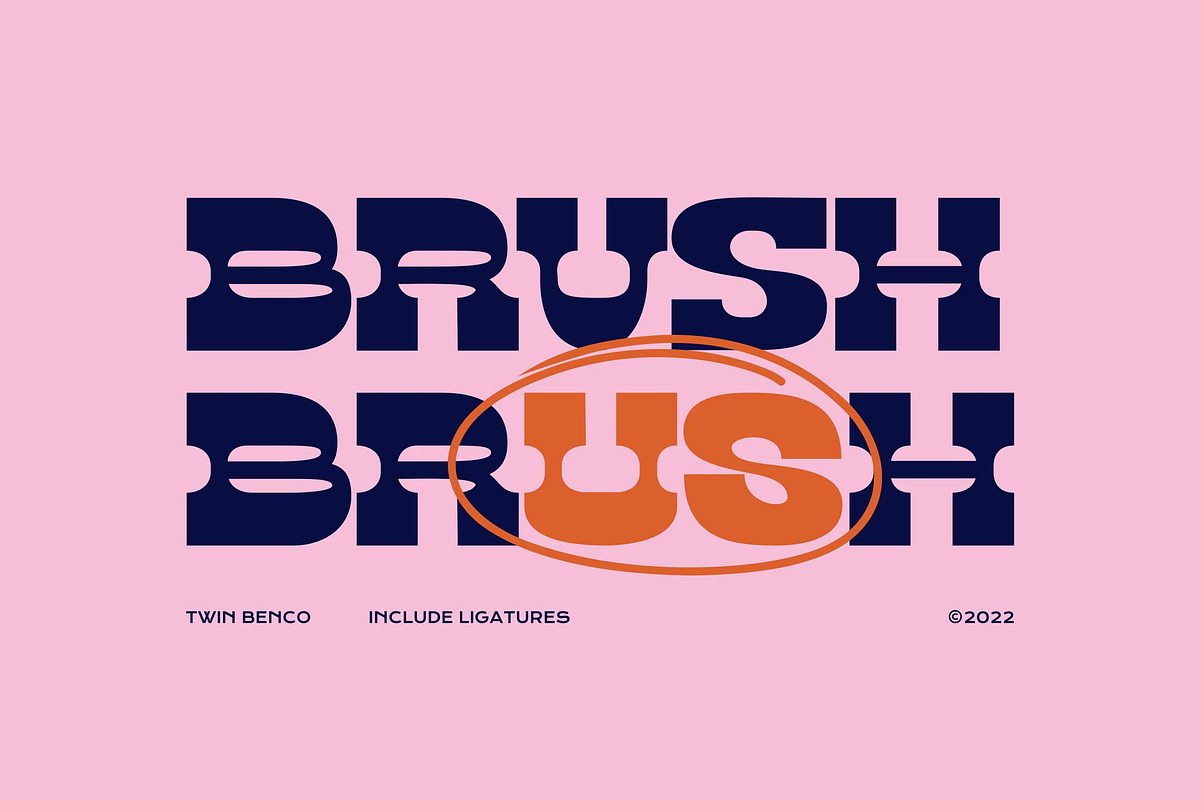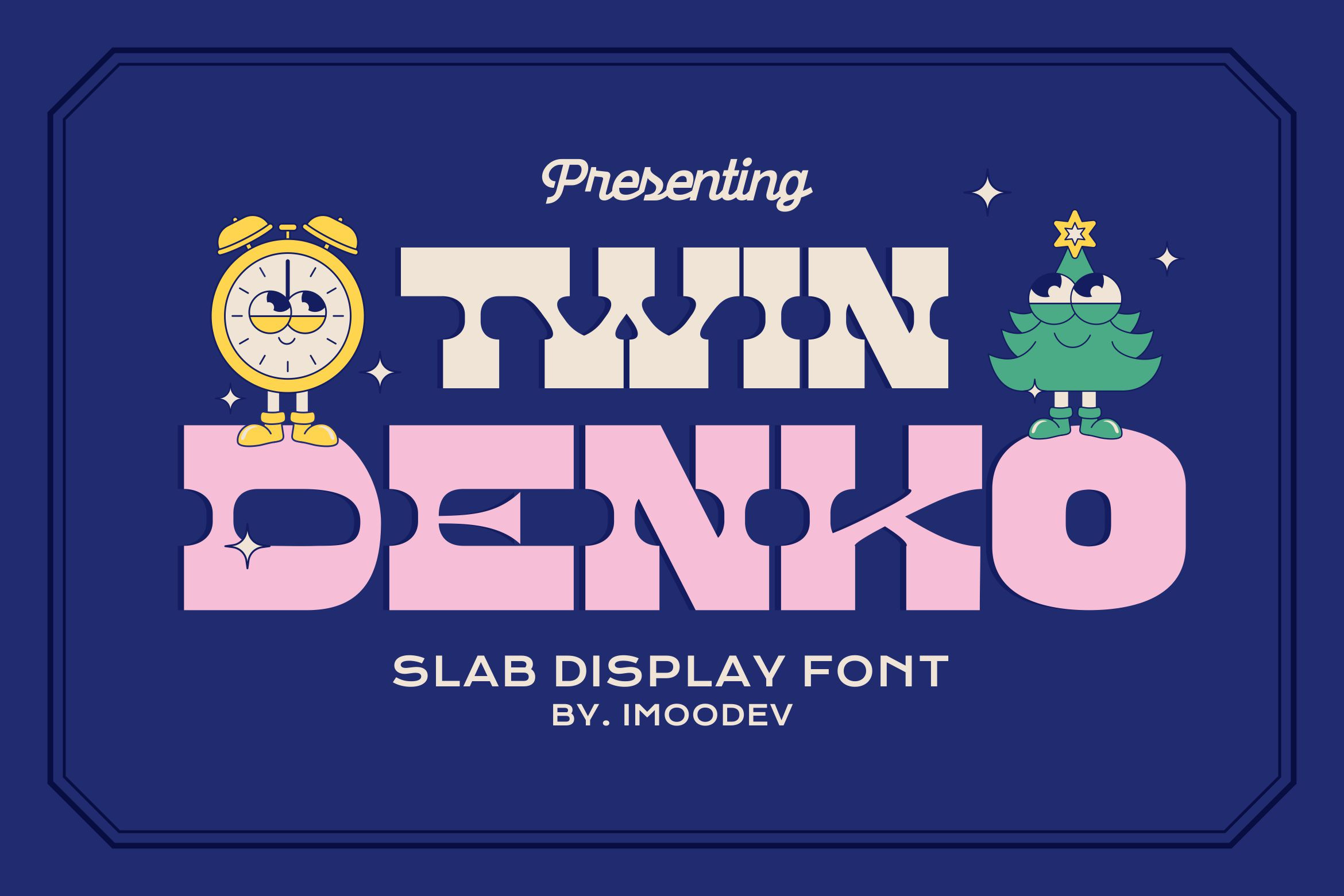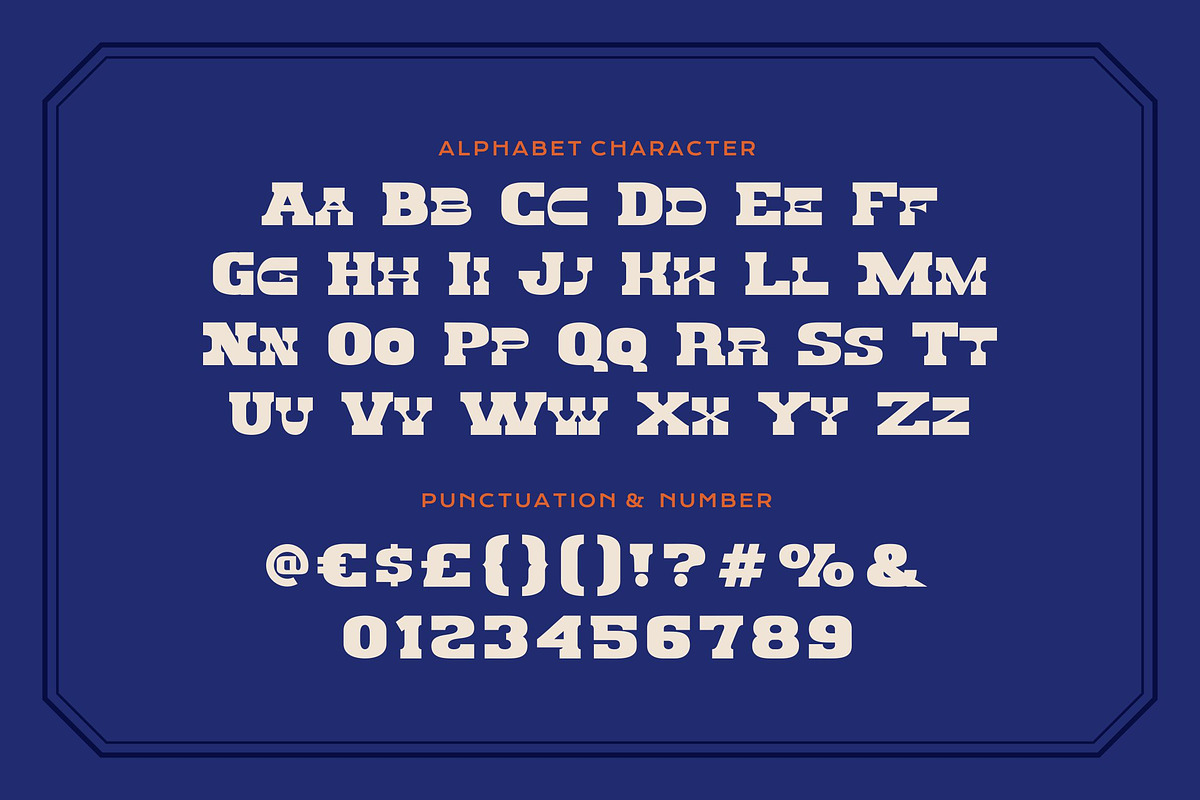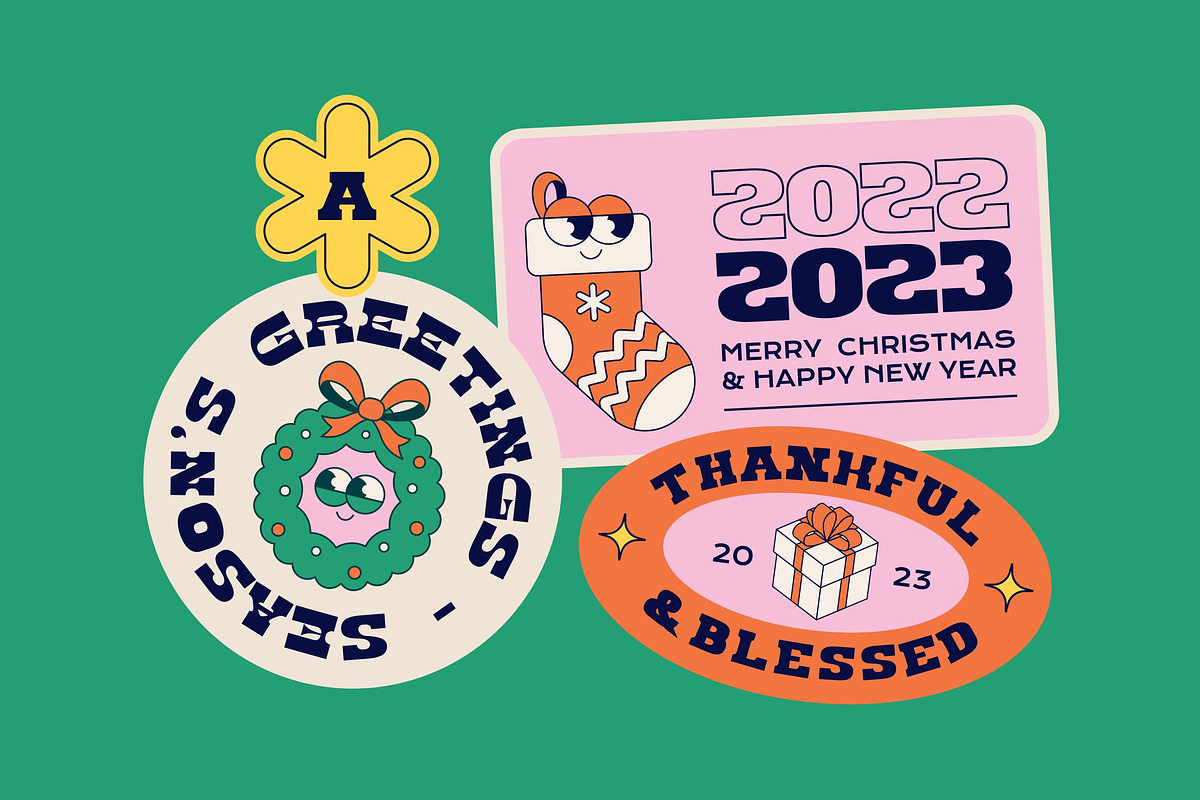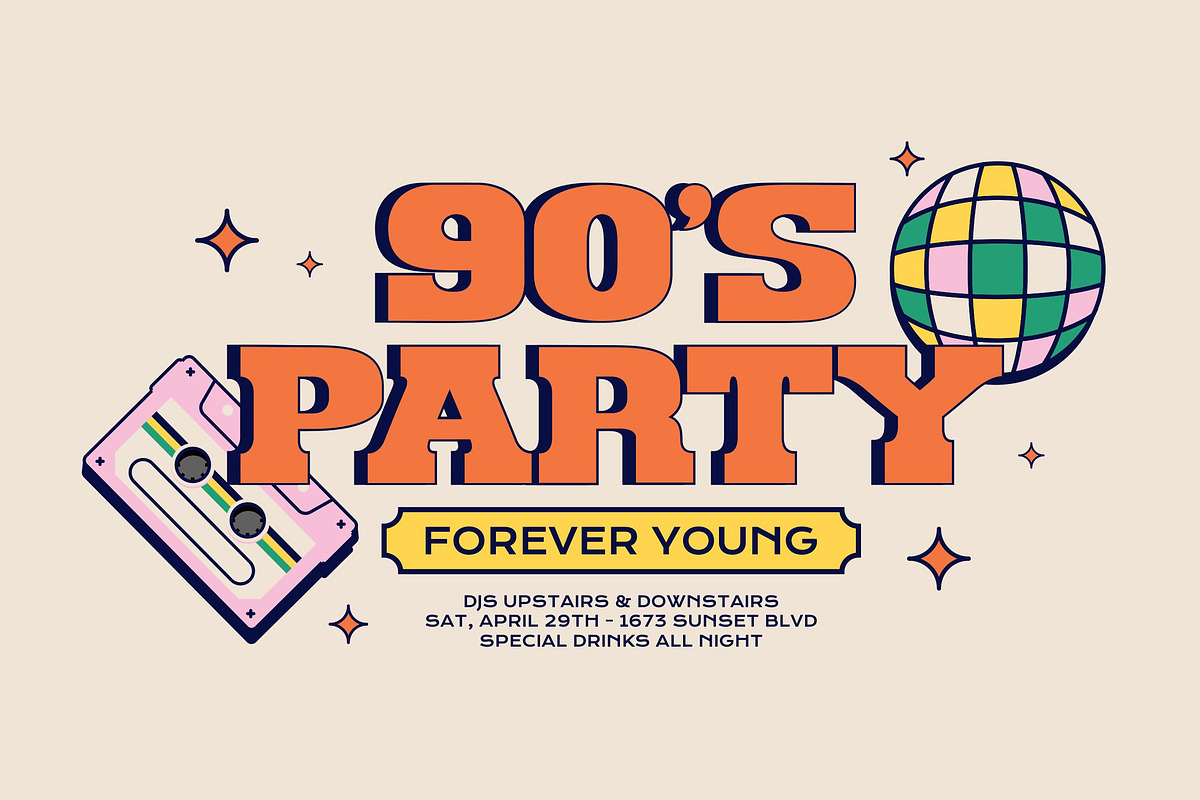
Twin Denko - Chunky Slab Typeface
Introducing Twin Denko, a delightfully bold and chunky slab display font that bursts with retro charm and playful energy. Inspired by groovy 70s typography.
Its sturdy, thick letterforms and solid slab serifs give it a confident and grounded feel, while unique tapered details and subtle curves on certain strokes add a touch of quirky personality.
Twin Denko is the perfect choice for projects that need a dose of nostalgic fun and approachability. It excels in branding, logo design, vibrant social media posts, headlines, fun packaging, and cheerful event posters. Whether you're designing tshirts, party flyers, greeting cards, merchandise, children's content design, holiday cards, or quotes for Instagram, this font will bring a smile to your audience's face.